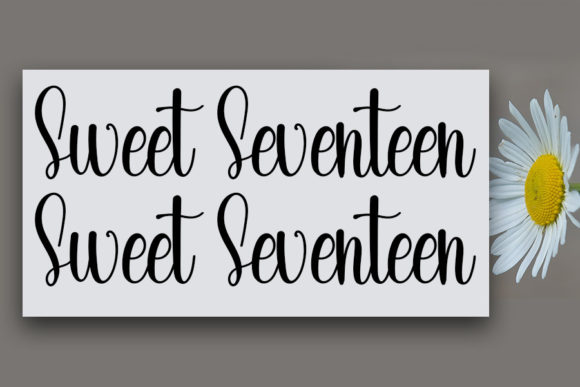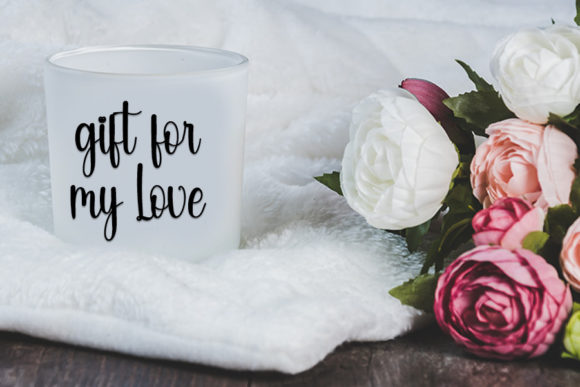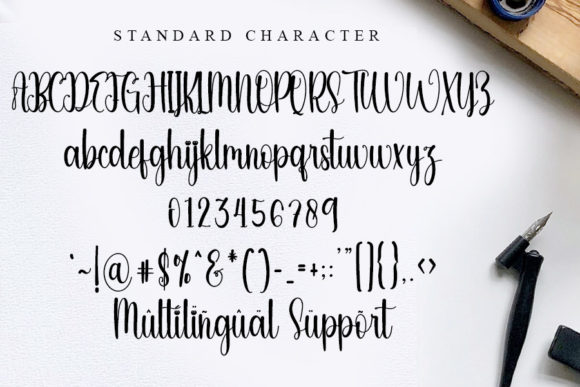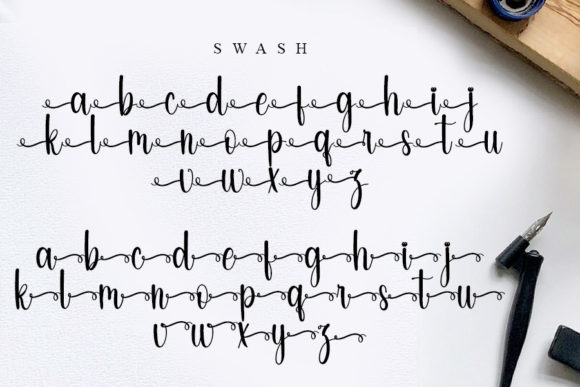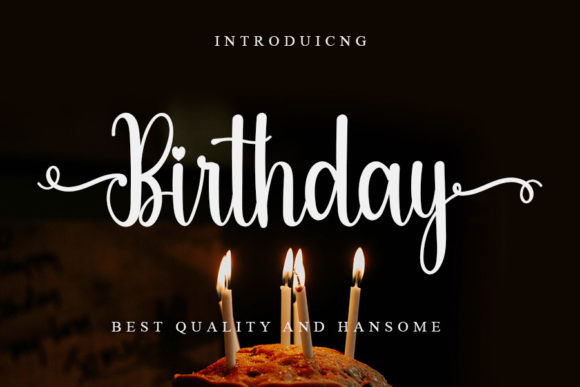
Introducing Birthday Font: Elevate Your Designs with a Touch of Timeless Elegance
Are you on the lookout for a font that exudes sophistication, elegance, and a dash of modern flair? Look no further than the Birthday Font, a stylish handwritten typeface that is sure to make your designs stand out from the crowd. Inspired by timeless classic calligraphy, this font brings a contemporary atmosphere to the table, making it perfect for designers and crafters seeking to add a touch of refinement to their projects.
The Inspiration Behind Birthday Font
Birthday Font draws its inspiration from the world of classic calligraphy, where the art of beautiful handwriting is revered. The result is a font that boasts impeccable form and a sense of luxury, making it ideal for special occasions, high-end branding, and creative projects that demand attention to detail. Whether you’re designing wedding invitations, greeting cards, or packaging, Birthday Font is sure to bring a level of sophistication that elevates your work.
What Sets Birthday Font Apart
So, what makes Birthday Font truly special? For starters, its PUA (Private Use Area) encoding allows you to access all the glyphs and swashes with ease, giving you unparalleled creative control over your designs. This means you can experiment with different ligatures, flourishes, and stylistic variations to create unique and eye-catching text arrangements that reflect your personal style.
- Stylish Handwritten Design: Birthday Font boasts a beautiful, handwritten design that adds a touch of warmth and personality to your projects.
- Contemporary Atmosphere: With its modern take on classic calligraphy, this font brings a fresh and contemporary feel to your designs.
- PUA Encoded: Enjoy effortless access to glyphs, swashes, and ligatures, giving you the creative freedom to experiment with different text arrangements.
- Impeccable Form: Inspired by timeless classic calligraphy, Birthday Font features impeccable form and a sense of luxury that’s perfect for high-end branding and special occasions.
Birthday Font is a versatile typeface that’s perfect for a wide range of design applications, including:
- Wedding Invitations and Stationery: Add a touch of elegance and sophistication to your wedding designs with Birthday Font.
- Greeting Cards and Gift Tags: Create beautiful, handmade-style greeting cards and gift tags that are sure to impress.
- Branding and Packaging: Use Birthday Font to create luxurious brand identities and packaging designs that stand out from the competition.
- Digital Art and Illustration: Experiment with Birthday Font in your digital art and illustration projects, adding a touch of personality and whimsy to your work.